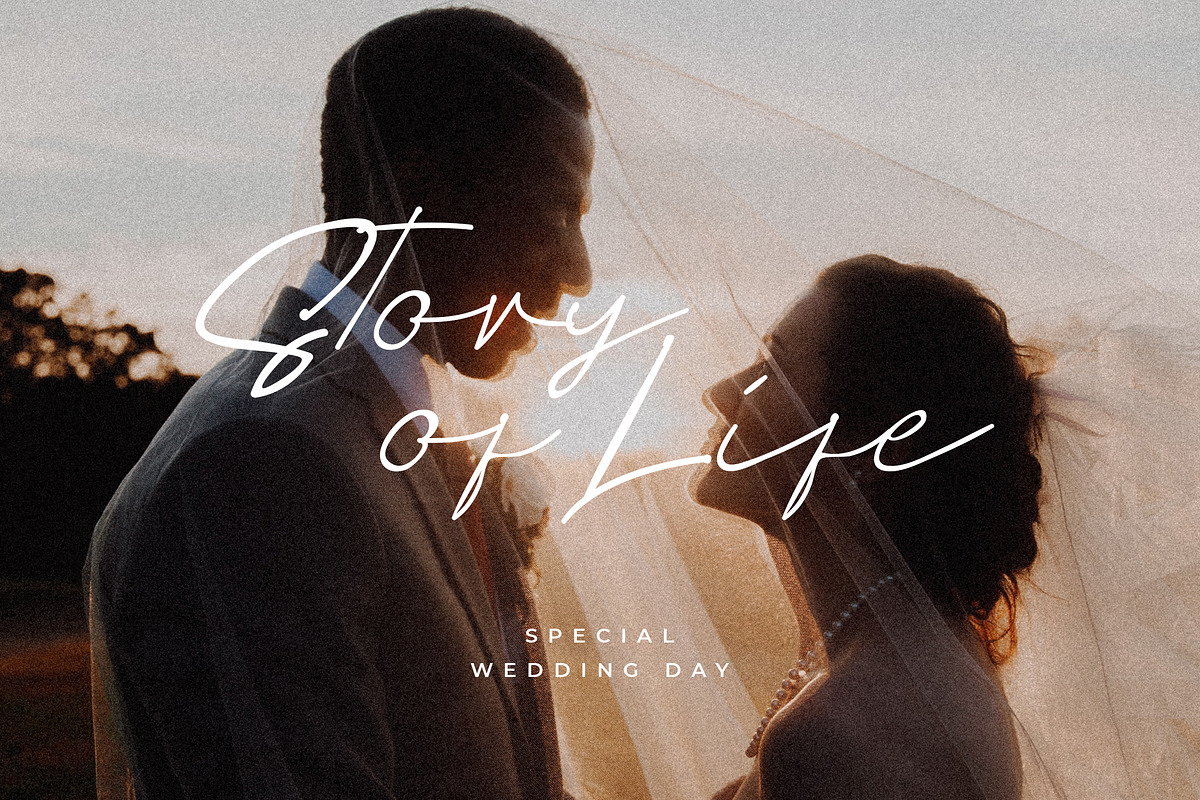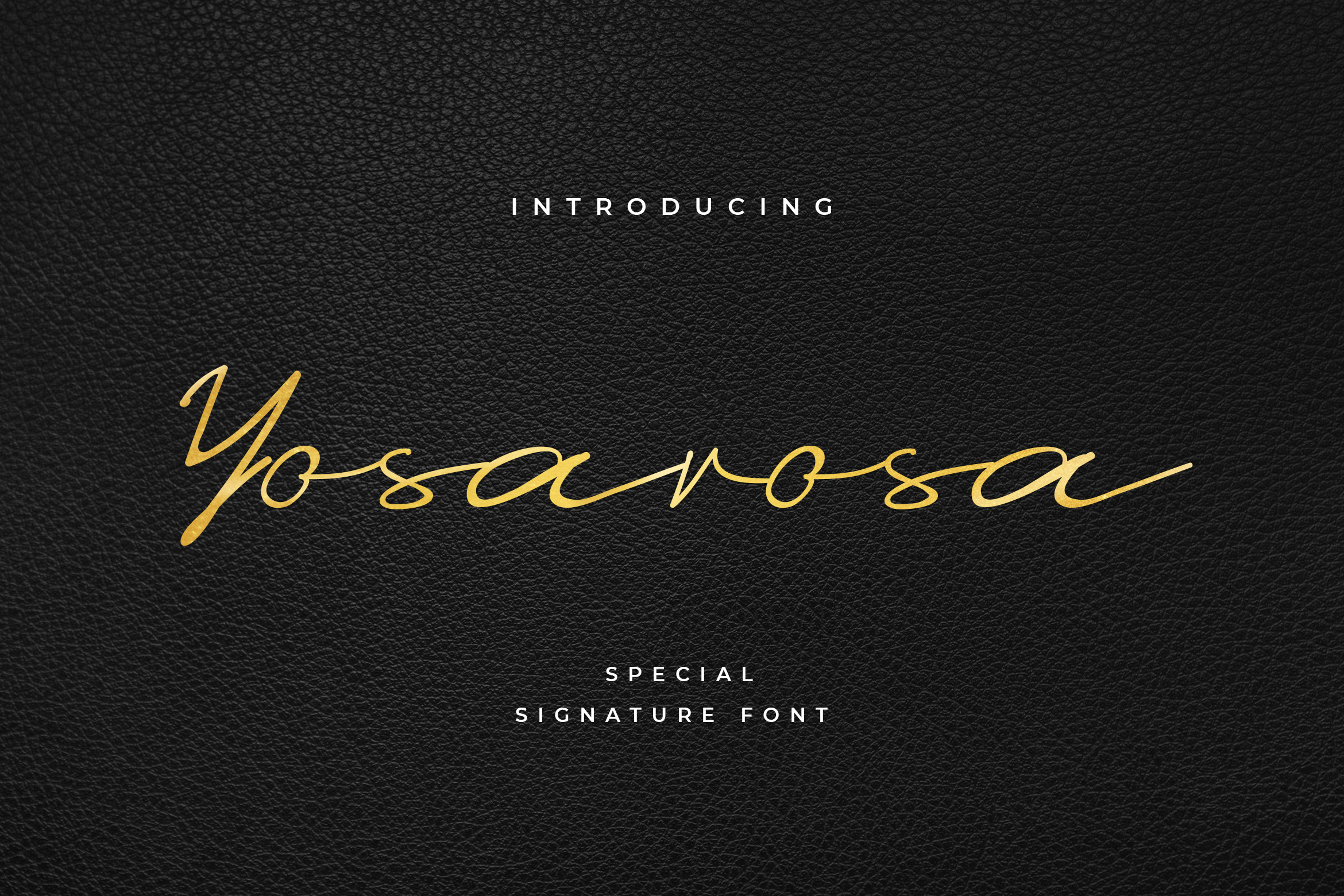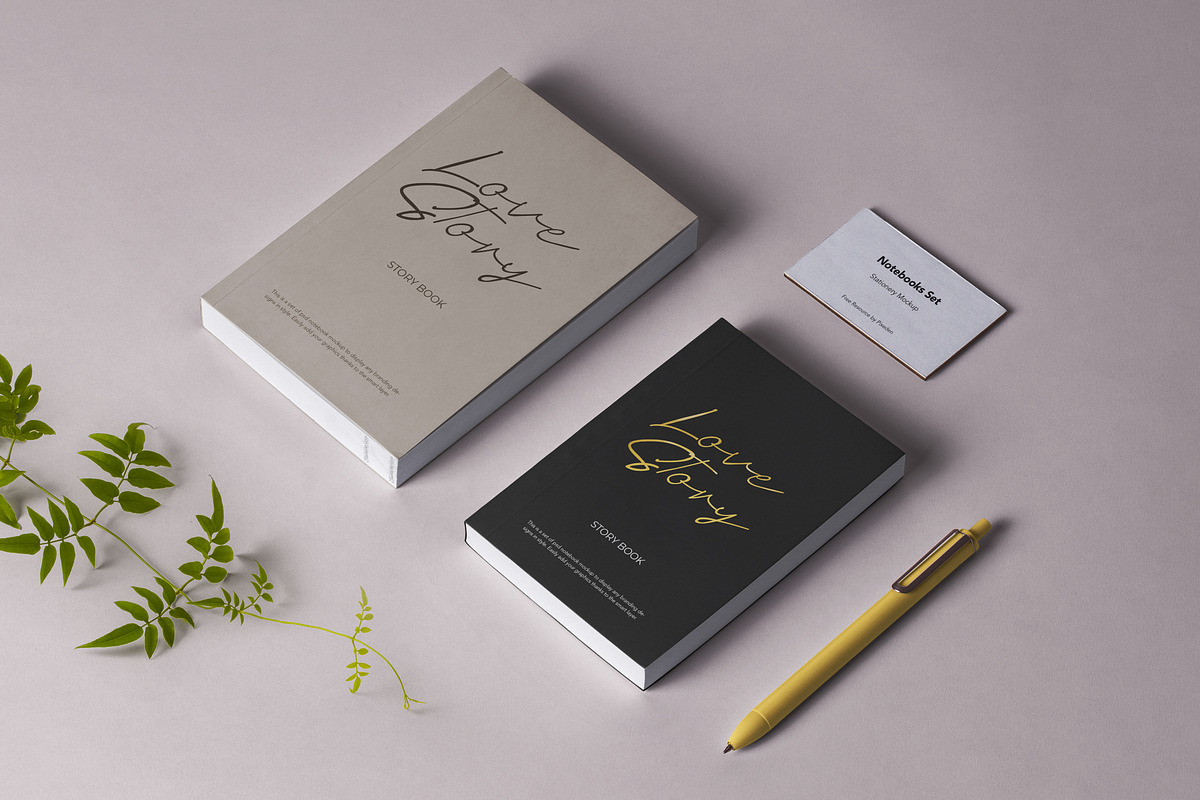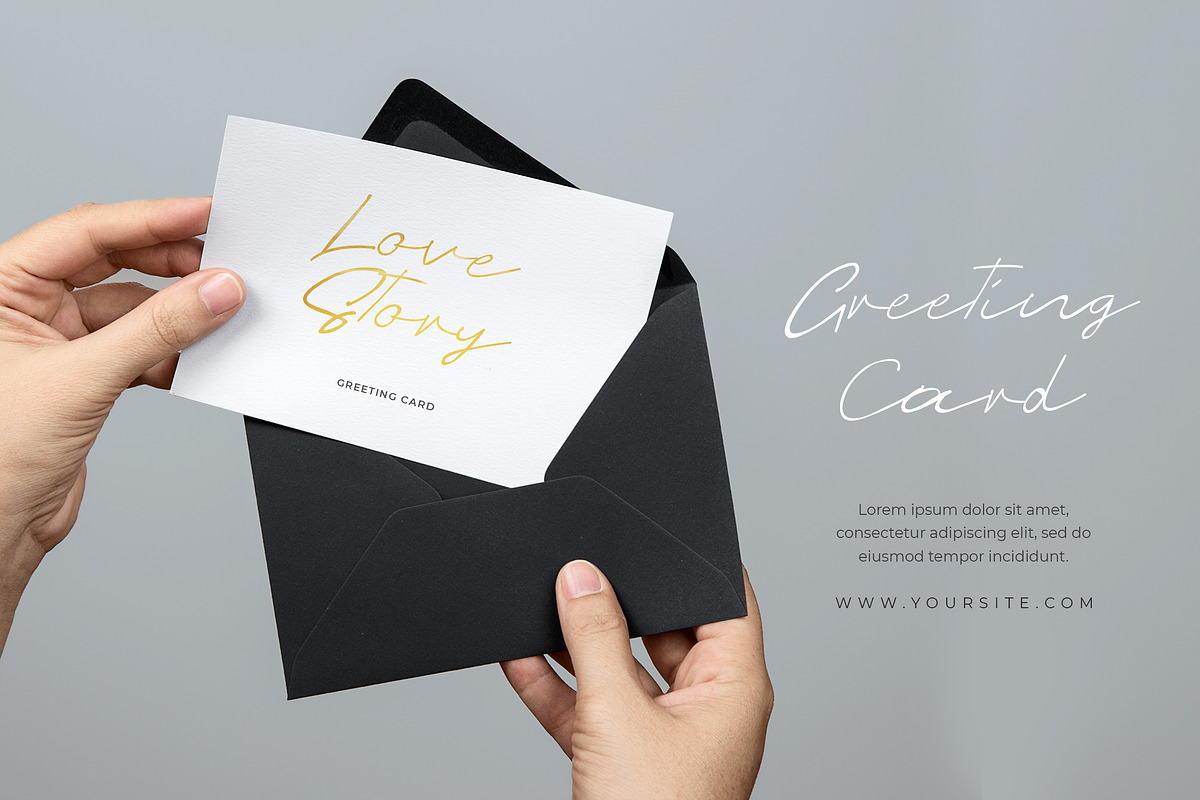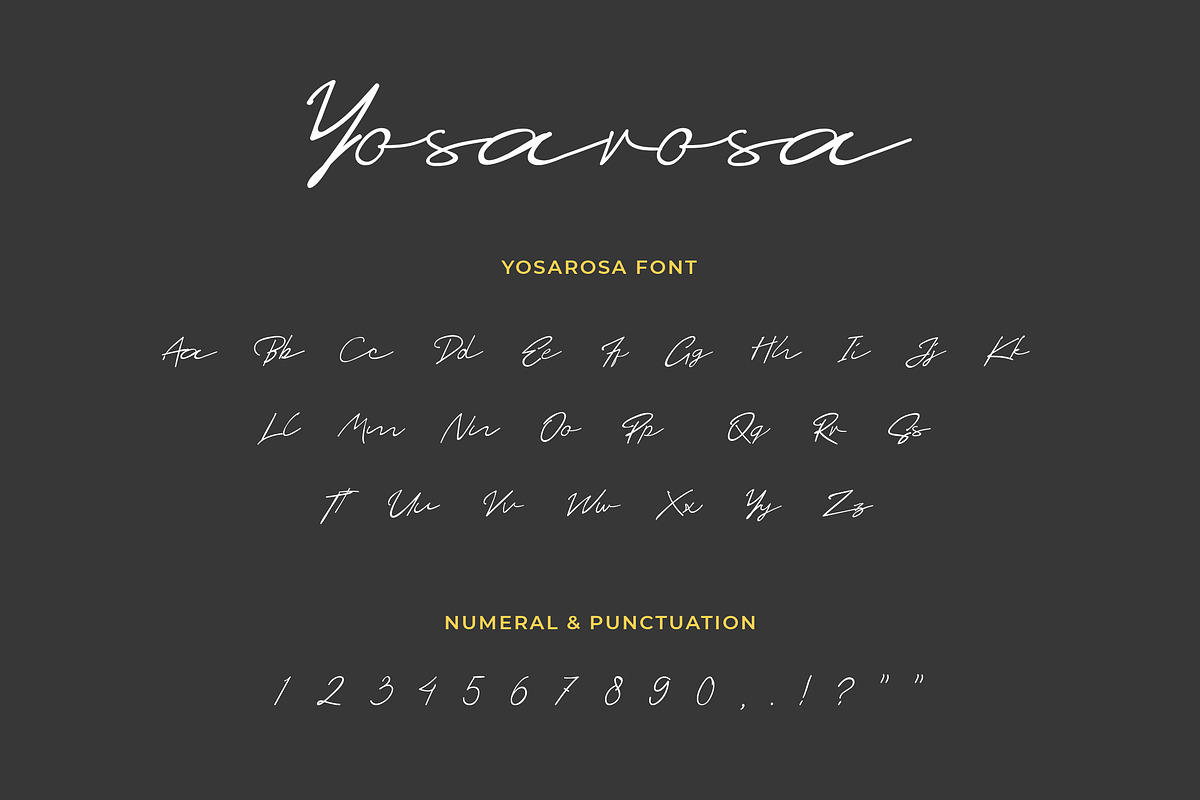
Yosarosa Signature Font
Yosarosa is unique handwritten font with a personal charm. With quick dry strokes and also has vintage display font. Can make it easier to convey the message in your design. Use for awesome display, labeling, clothing, movie sceen, poster, movie title, gigs, album covers, logos, and much more. It's also could be good for both fun and semi-formal text.